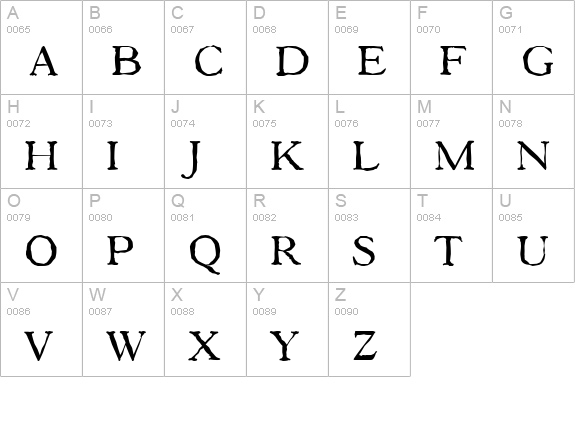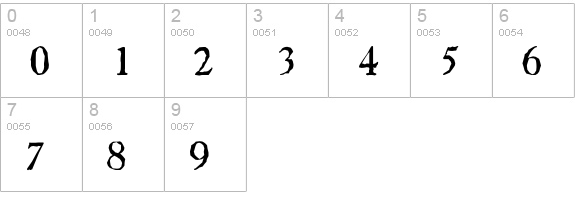
GascogneAntique-Regular Font Details
GascogneAntique-Regular is the standard, neutral variant in the GascogneAntique typeface family \xE2\x80\x94 well suited to general body text, paragraphs, and standard typographic work.
GascogneAntique-Regular is a charming and elegant font that exudes a sense of timeless sophistication. With its classic serifs and graceful curves, this typeface is perfect for adding a touch of vintage flair to any design project. Whether you are creating invitations, logos, or packaging, GascogneAntique-Regular will bring a touch of old-world charm to your work. And the best part? GascogneAntique-Regular is available for free download at FontsMarket.com. You can easily access this exquisite font and enhance your creative projects with its unique aesthetic. Don't miss out on the opportunity to add GascogneAntique-Regular to your font collection and elevate your designs with its vintage-inspired beauty.